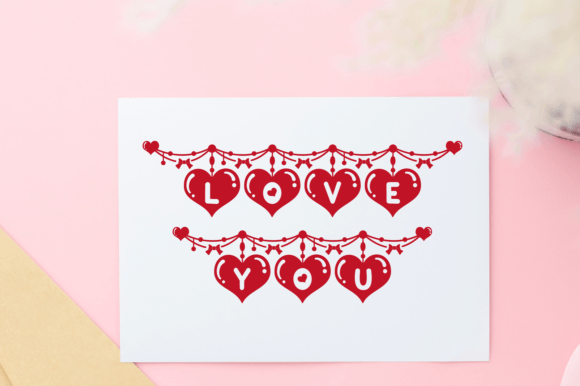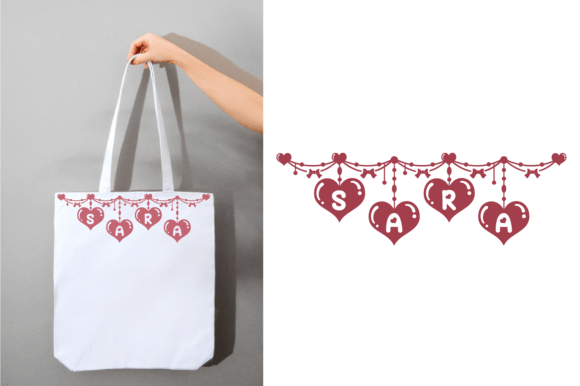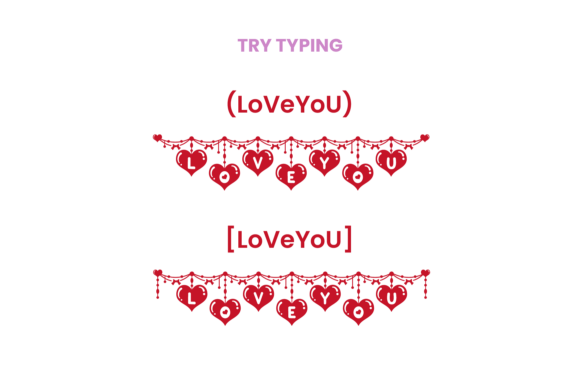
Introduction to Festive Love Font
Festive Love Decorative is perfect font for spreading joy this holiday season.
Featuring charming heart-shaped letters, this font is ideal for Christmas cards, Valentine’s Day, gift tags, or holiday crafts Add a touch of love and festivity to your designs with this unique and playful font.